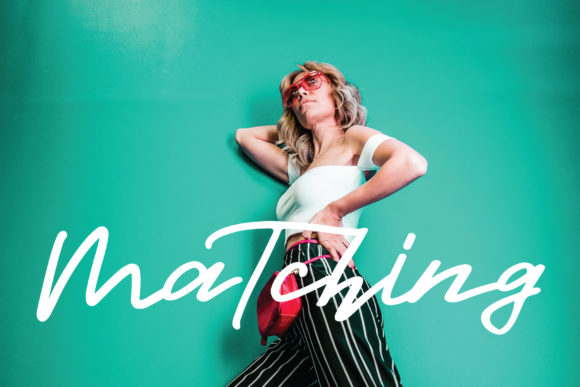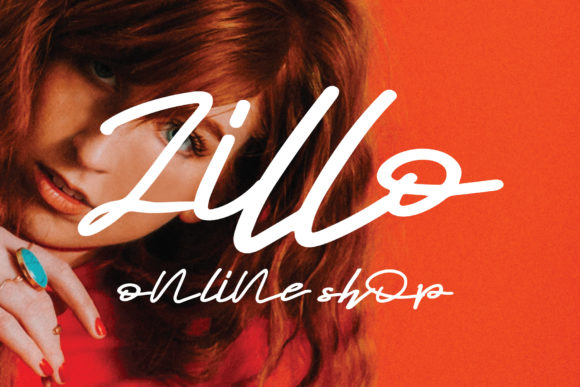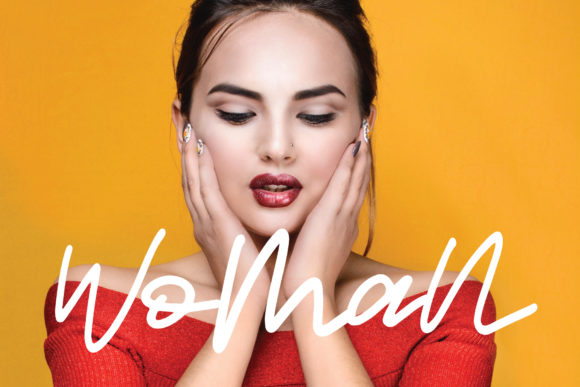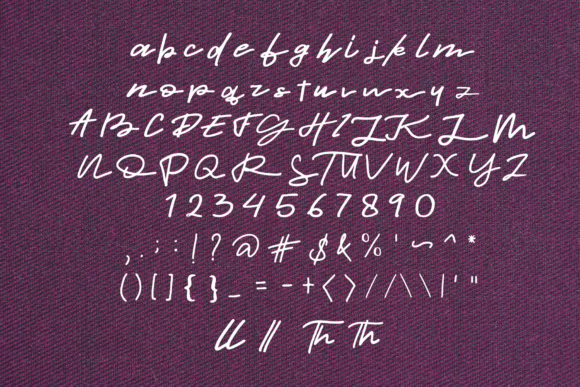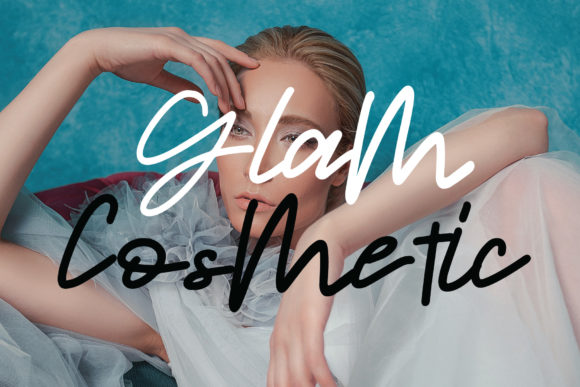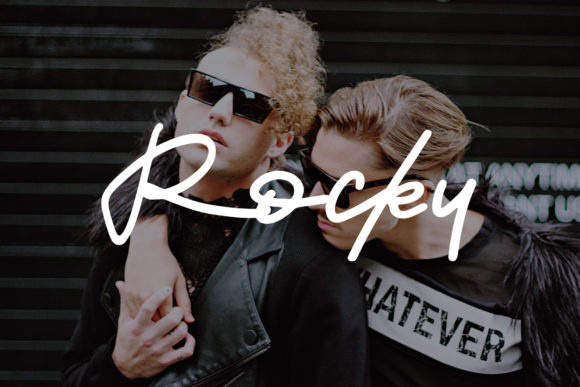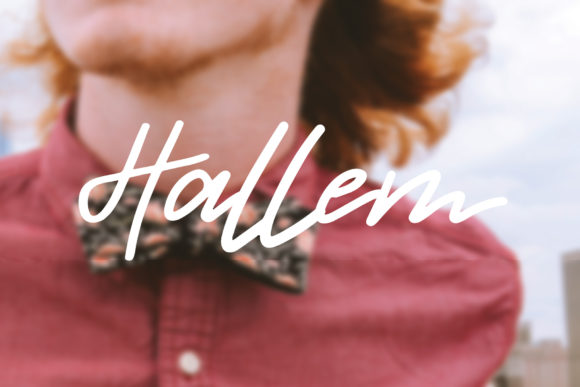
Discover the Elegance of Hallem Font: A Modern Script Typeface
Are you looking for a font that exudes elegance and sophistication? Look no further than Hallem Font, a beautiful script typeface that features flowing curves and a modern appearance. In this article, we’ll dive into the world of Hallem Font and explore its unique characteristics, uses, and benefits for designers and crafters.
What is Hallem Font?
Hallem Font is a script typeface that boasts a distinctive, cursive style with flowing curves and elegant lines. Its modern appearance makes it perfect for designs that require a touch of sophistication and refinement. The font is designed to be versatile, making it suitable for a wide range of applications, from branding and advertising to packaging and digital media.
Key Features of Hallem Font
- Flowing Curves: Hallem Font features smooth, flowing curves that give it a dynamic and elegant appearance.
- Modern Appearance: The font’s modern design makes it perfect for contemporary designs that require a fresh and stylish look.
- Versatility: Hallem Font is highly versatile and can be used for a variety of applications, including headings, titles, and body text.
- Easy to Read: Despite its elegant appearance, Hallem Font is easy to read, making it suitable for use in both digital and print media.
Uses of Hallem Font
Hallem Font is a highly versatile font that can be used in a variety of contexts. Here are some of the most popular uses of the font:
- Branding and Advertising: Hallem Font is perfect for creating elegant and sophisticated brand identities, including logos, business cards, and letterheads.
- Packaging Design: The font’s modern appearance makes it ideal for packaging design, including product labels, tags, and packaging materials.
- Digital Media: Hallem Font can be used in digital media, including website headers, social media graphics, and email marketing campaigns.
- Crafting and Scrapbooking: The font’s elegant appearance makes it perfect for crafters and scrapbookers who want to add a touch of sophistication to their projects.
Benefits of Using Hallem Font
There are several benefits to using Hallem Font in your designs. Here are some of the most significant advantages:
- Unique Appearance: Hallem Font’s distinctive appearance sets it apart from other fonts, making it perfect for designers who want to create unique and memorable designs.
- Elegance and Sophistication: The font’s elegant appearance adds a touch of sophistication to any design, making it perfect for high-end brands and luxury products.
- Versatility: Hallem Font’s versatility makes it suitable for a wide range of applications, from digital media to print materials.
Tips for Using Hallem Font
Here are some tips for using Hallem Font in your designs:
- Use it Sparingly: Hallem Font is a elegant font that can quickly become overwhelming if overused. Use it sparingly to add a touch of sophistication to your designs.
- Pair it with Other Fonts: Hallem Font pairs well with other fonts, including sans-serif fonts and serif fonts. Experiment with different pairings to find the perfect combination for your design.
- Adjust the Size: Hallem Font can be used at a variety of sizes, from large headings to smaller body text. Experiment with different sizes to find the perfect fit for your design.
| Author | goodigital |
Hallem Font is a beautiful script typeface that features flowing curves and a modern appearance. Its elegance and sophistication make it perfect for designers and crafters who want to add a touch of refinement to their designs. With its versatility, ease of use, and unique appearance, Hallem Font is a great addition to any design toolkit.